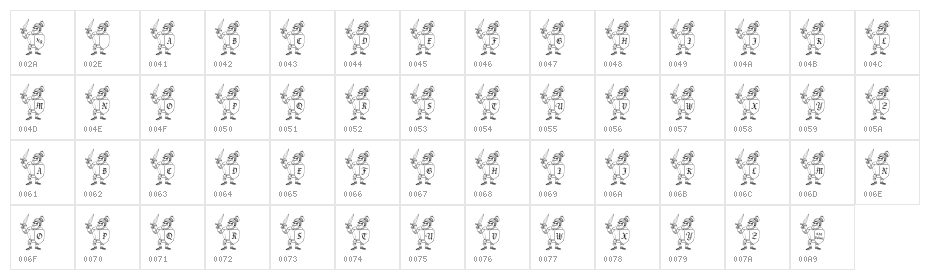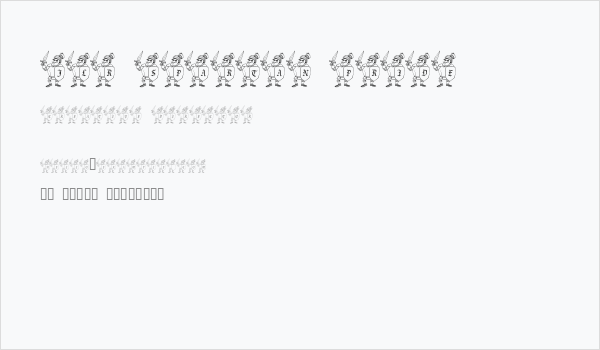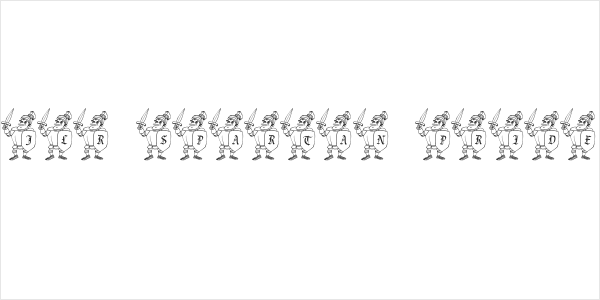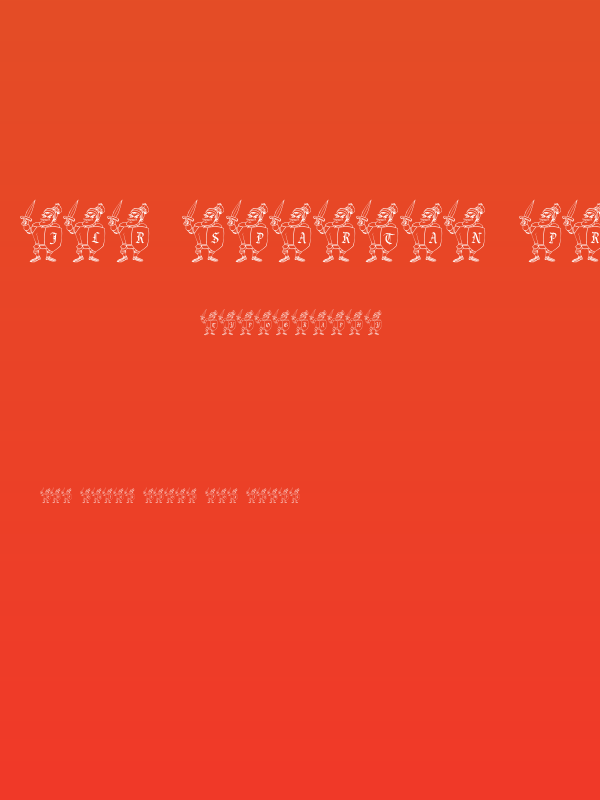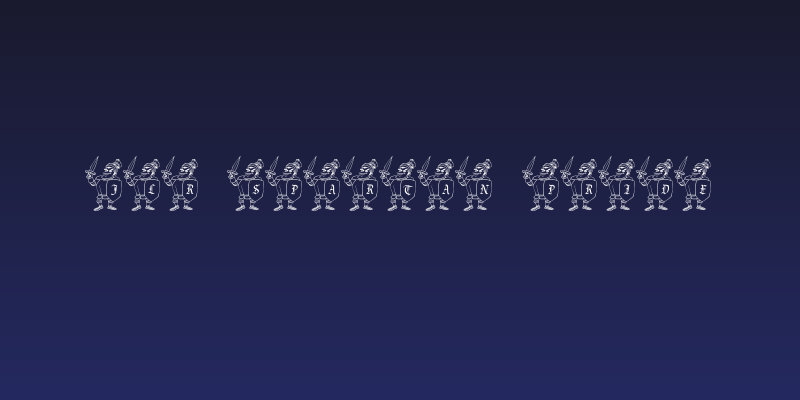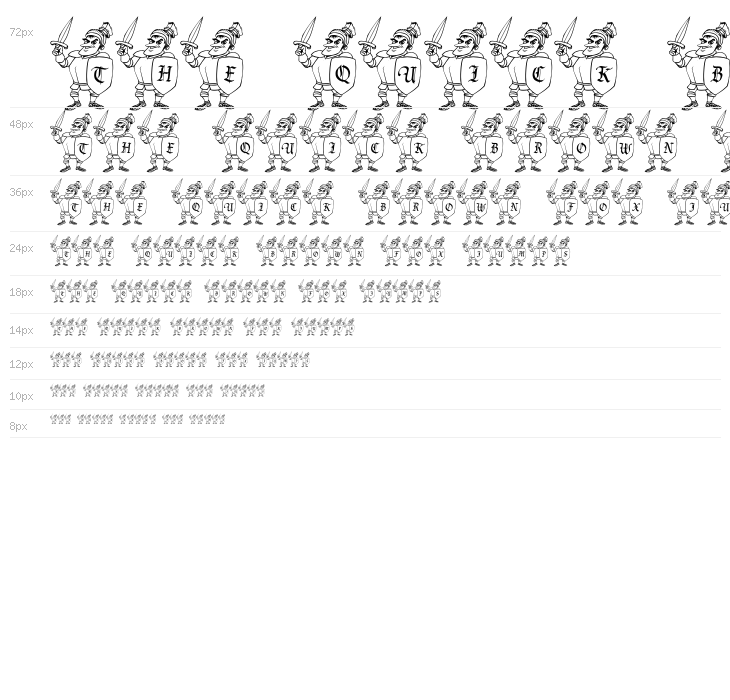
JLR Spartan Pride Font
JLR Spartan Pride Description
This unique and playful font features a cartoonish Spartan character integrated with each letter, creating a whimsical and engaging design. The characters are bold and outlined, with each letter appearing on the Spartan's shield. The font is highly decorative, making it ideal for projects that require a fun and thematic approach. The Spartan character adds a sense of movement and personality to each letter, making it stand out in any design. The font does not include lowercase letters or numbers, focusing instead on uppercase letters and a few special characters.
| Proposed Projects | Ideal for school spirit materials, sports team branding, themed event posters, and children's book titles. |